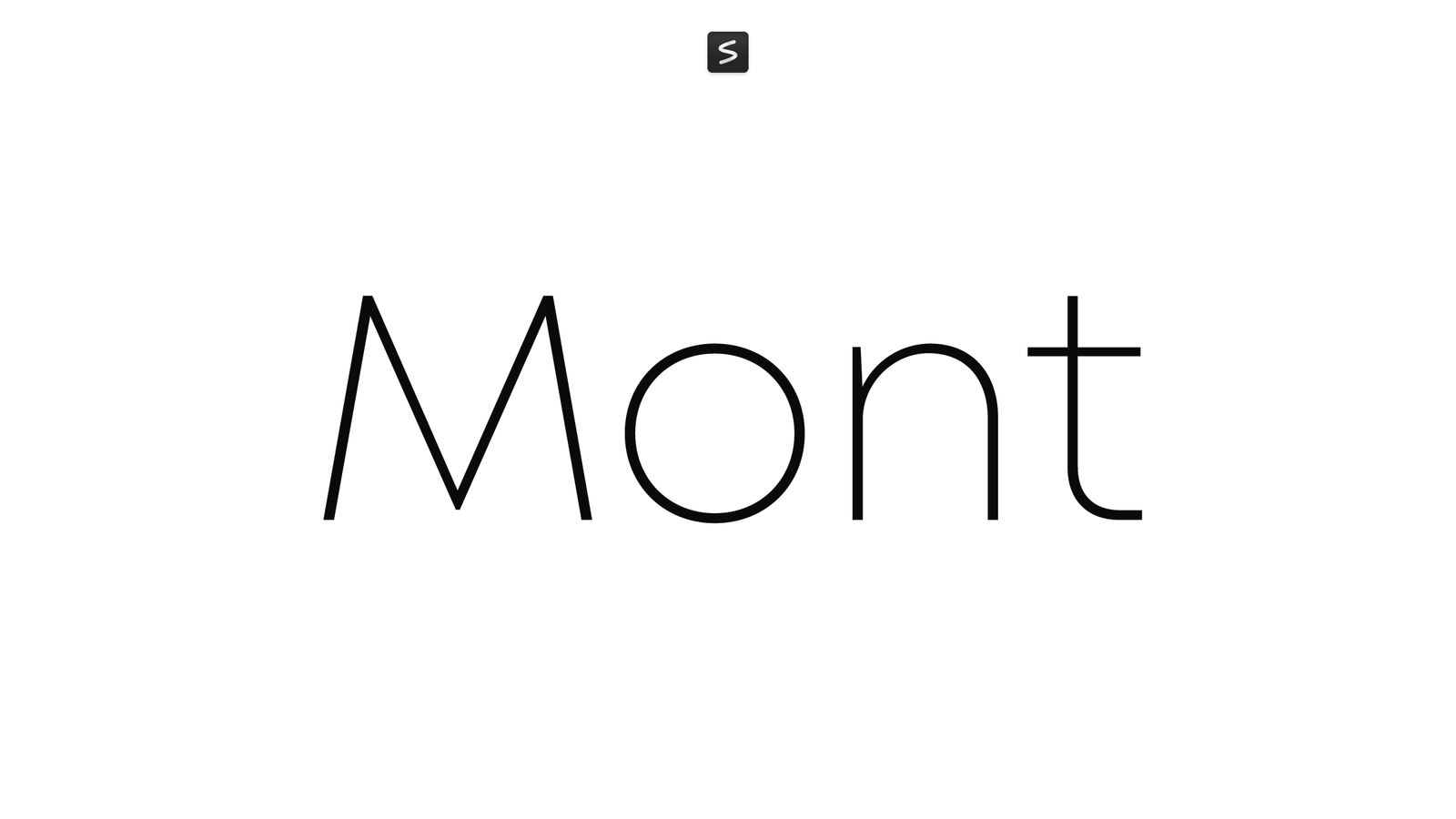
Mont is a contemporary geometric sans-serif designed by Fontfabric. It features subtle rounded terminals and consistent letterforms that work well across digital and print applications. The light weight and open spacing give it a clean, modern character without unnecessary embellishment.
The font is straightforward and legible, with a sense of balance that suits minimalist design work. Its proportions remain steady across the two free weights available, making it reliable for body text and headlines alike. Mont doesn’t demand attention but delivers clarity and a slightly refined aesthetic.
Mont works particularly well in editorial layouts, web design, branding systems, and any project where readability matters alongside contemporary aesthetics. The rounded terminals add just enough personality to distinguish it from purely mechanical geometric sans-serifs, while maintaining a professional appearance.